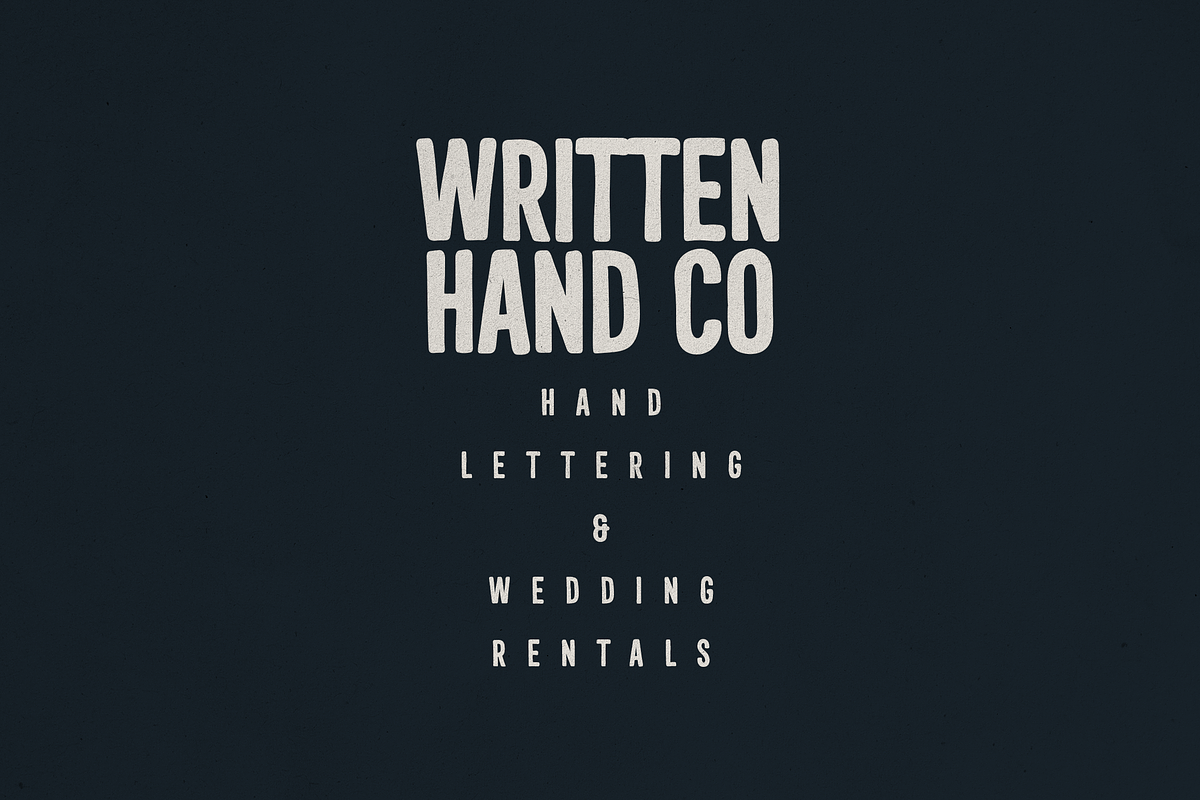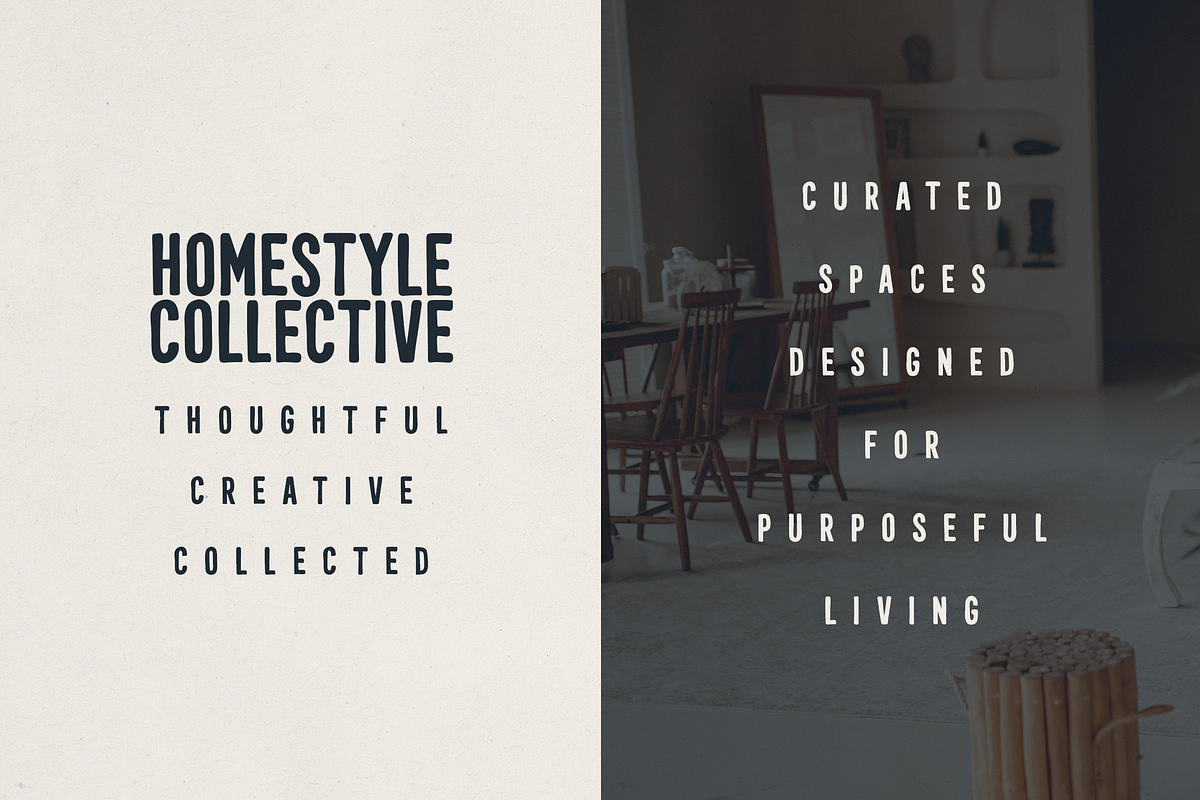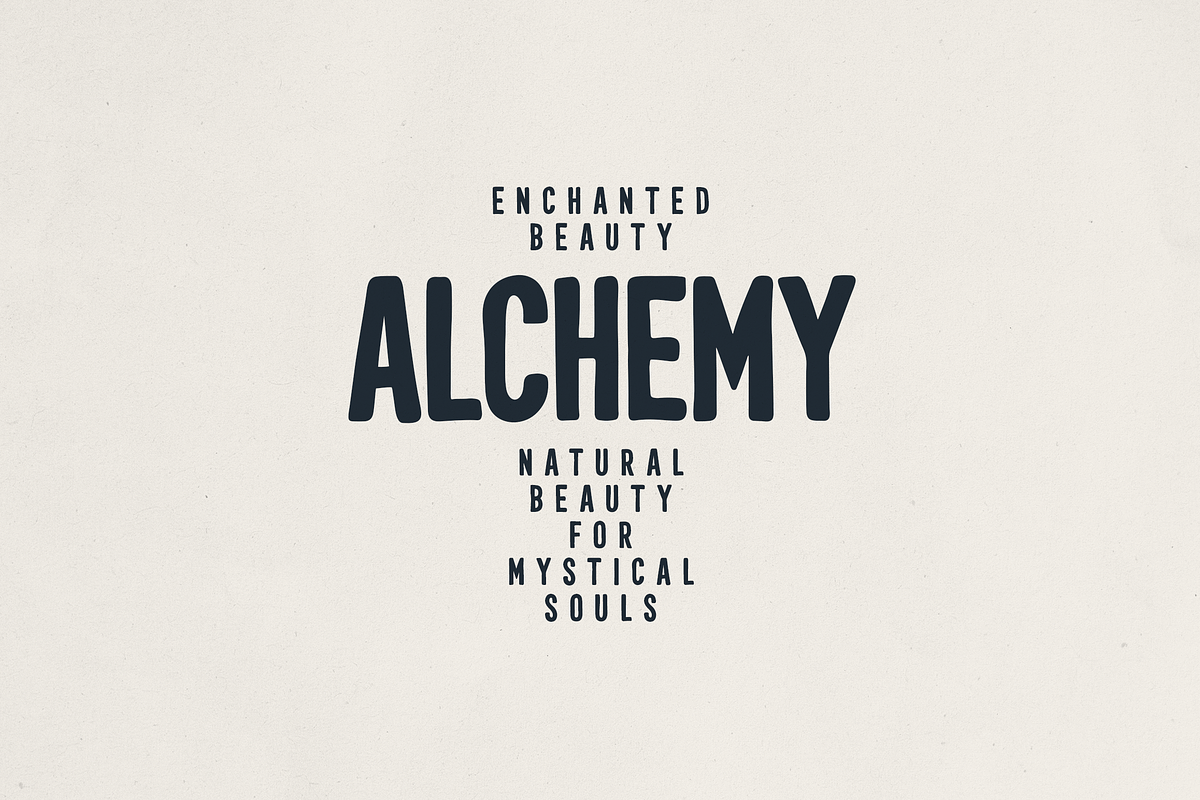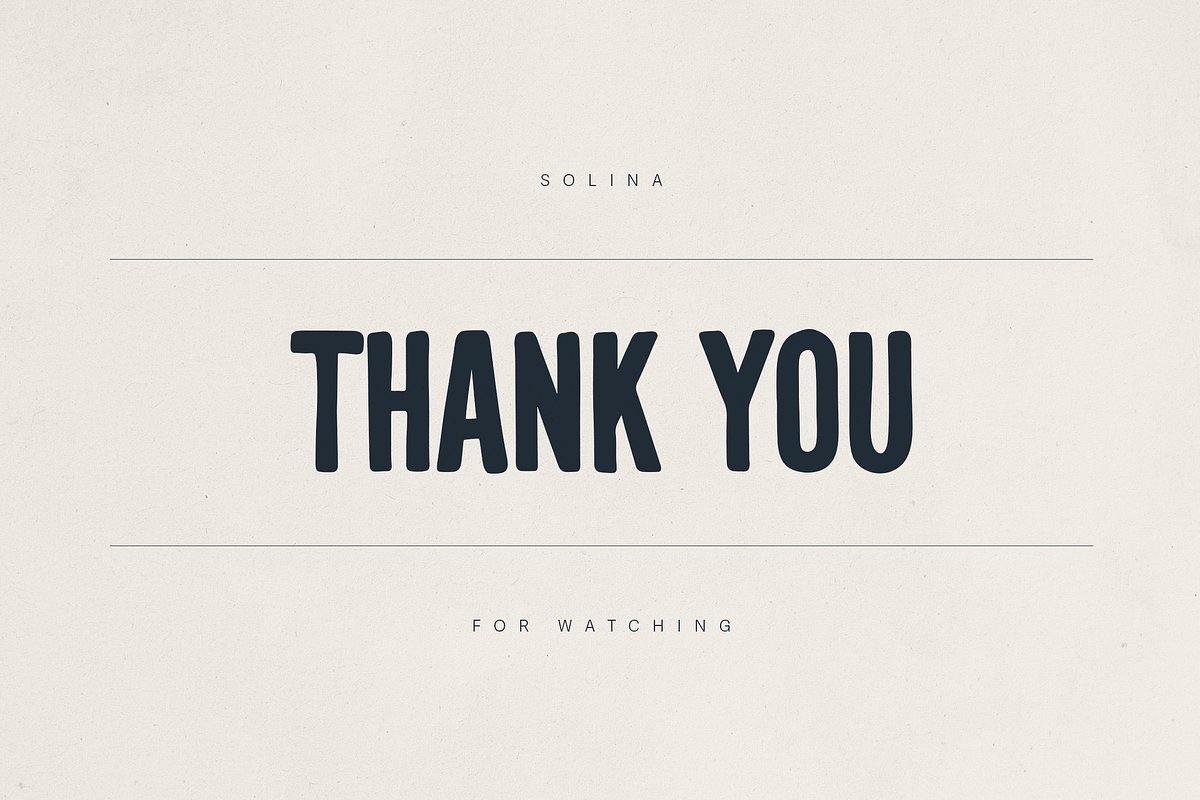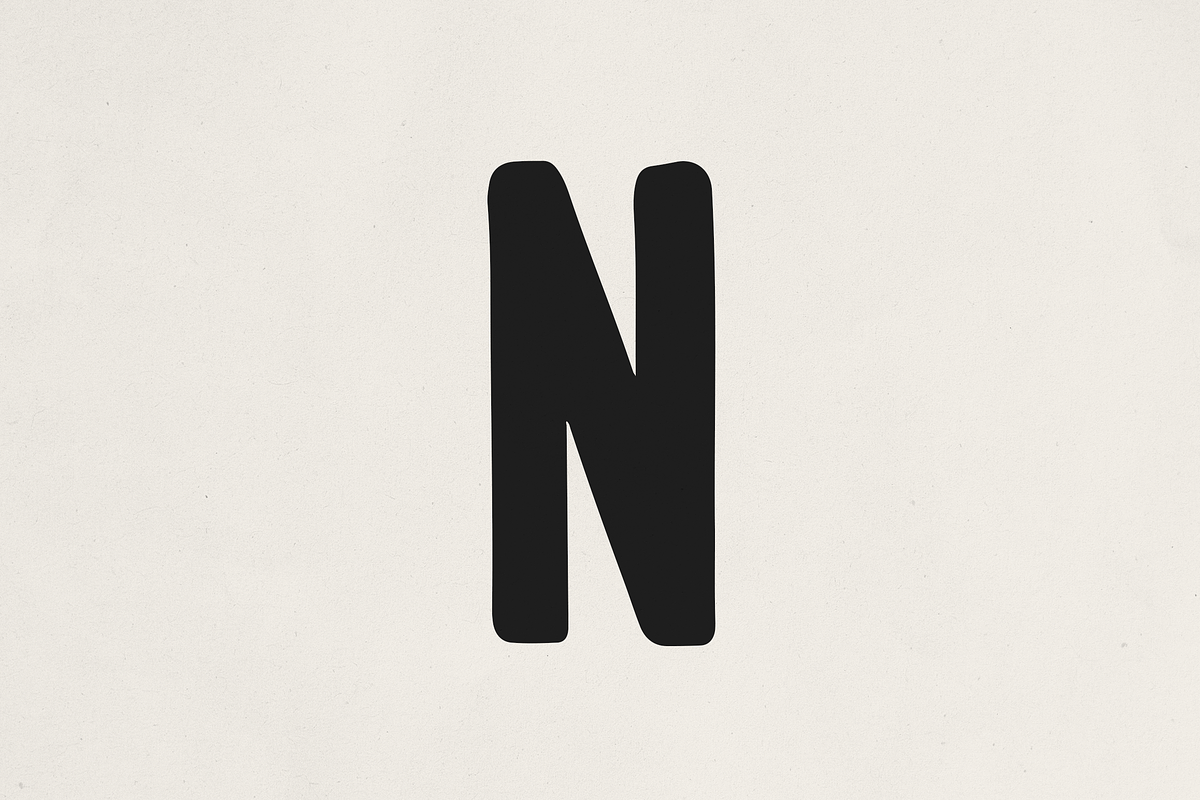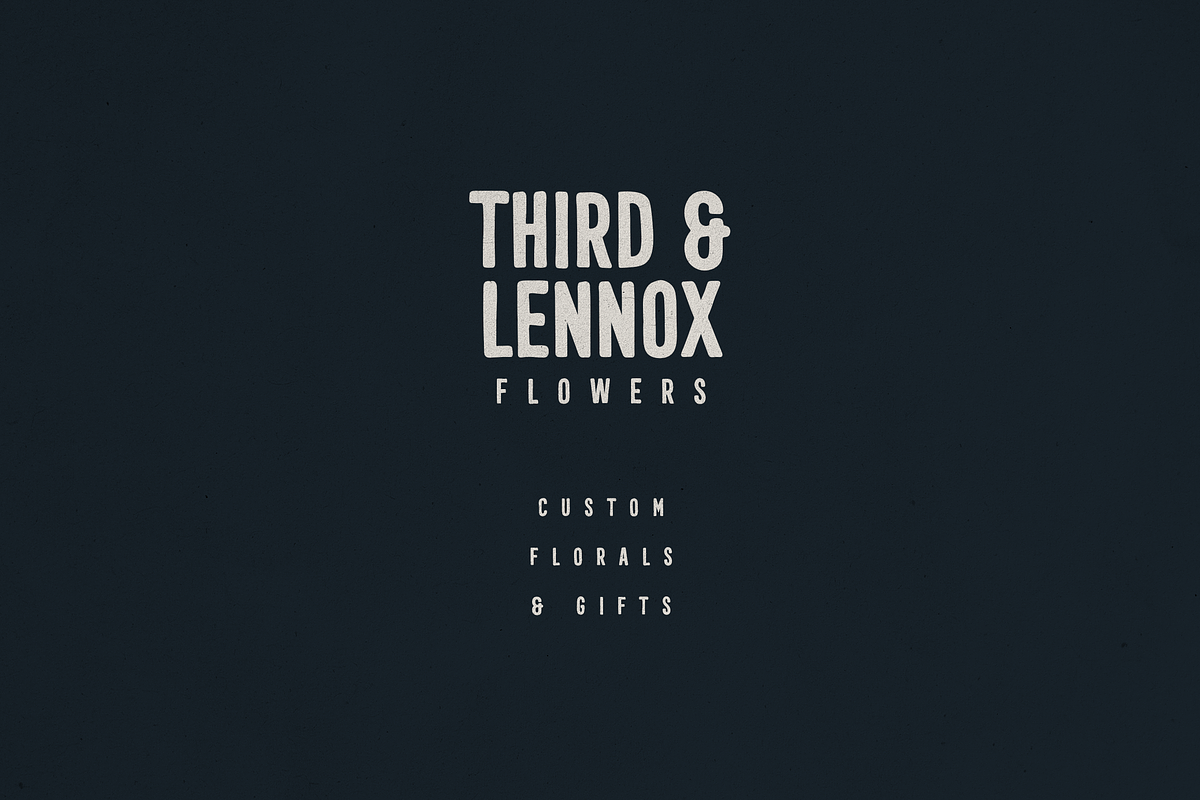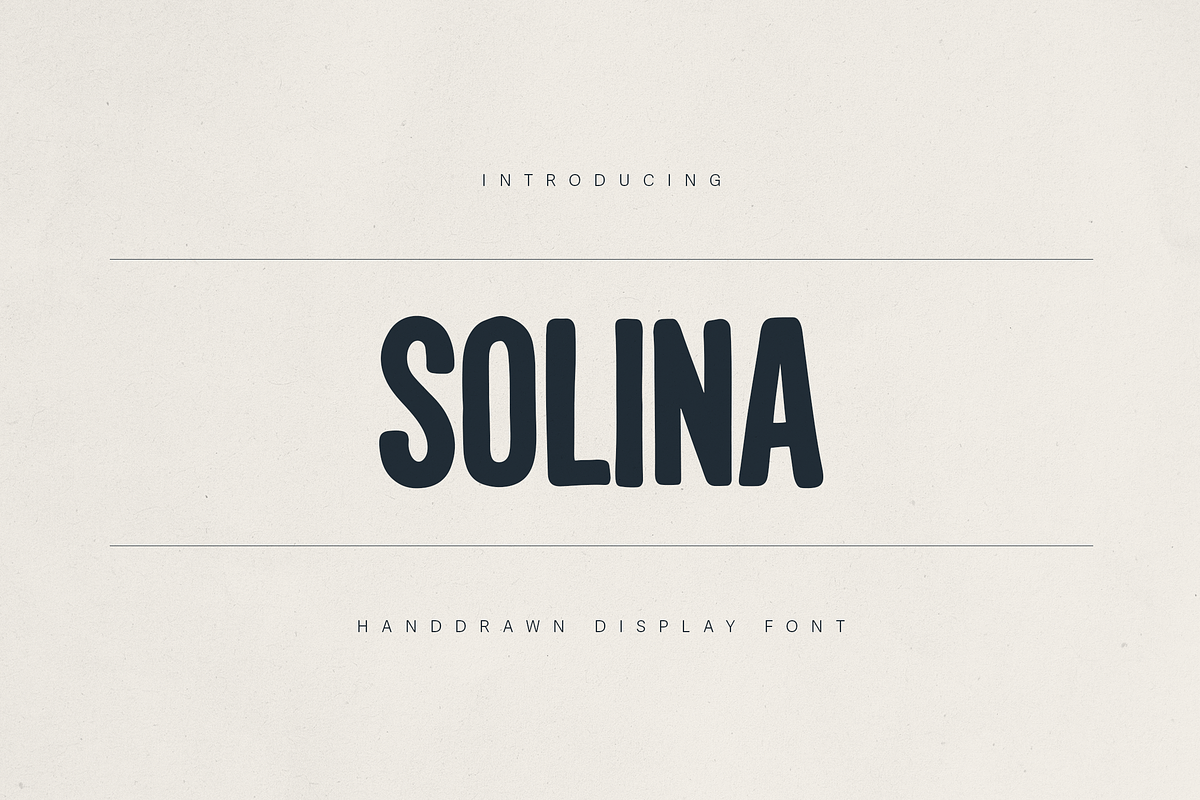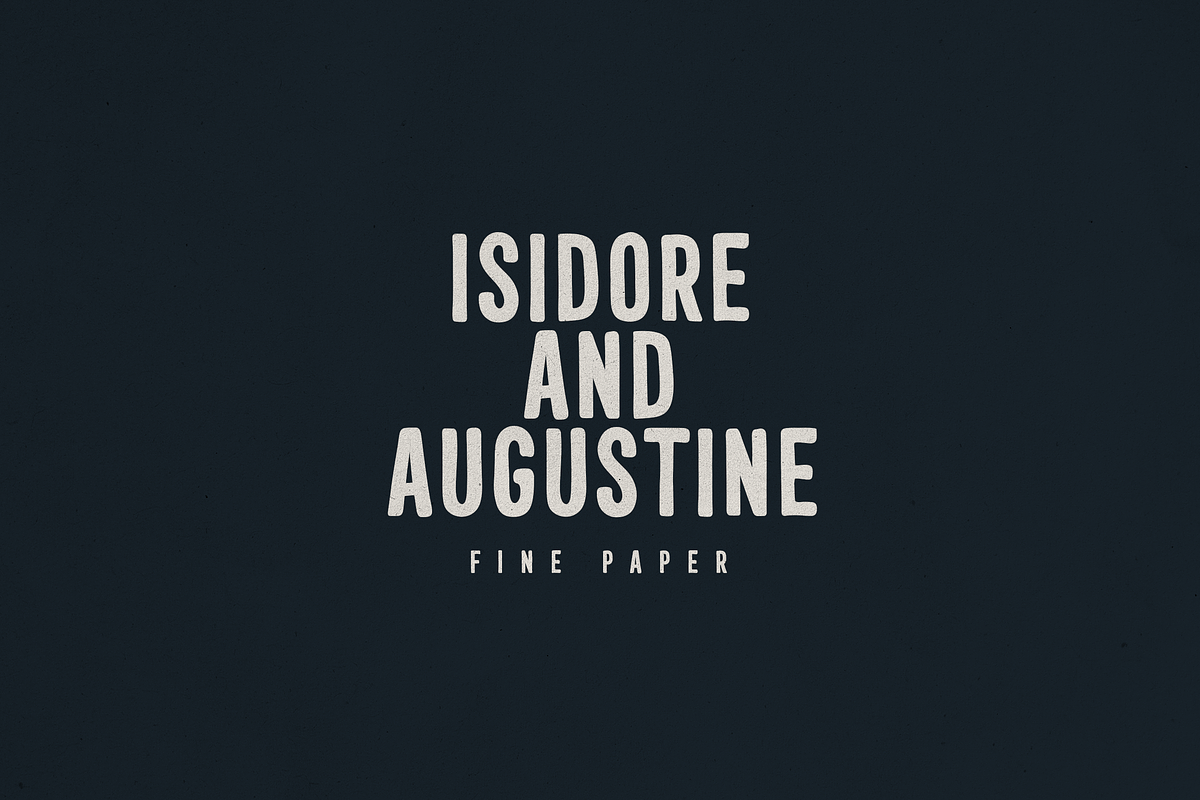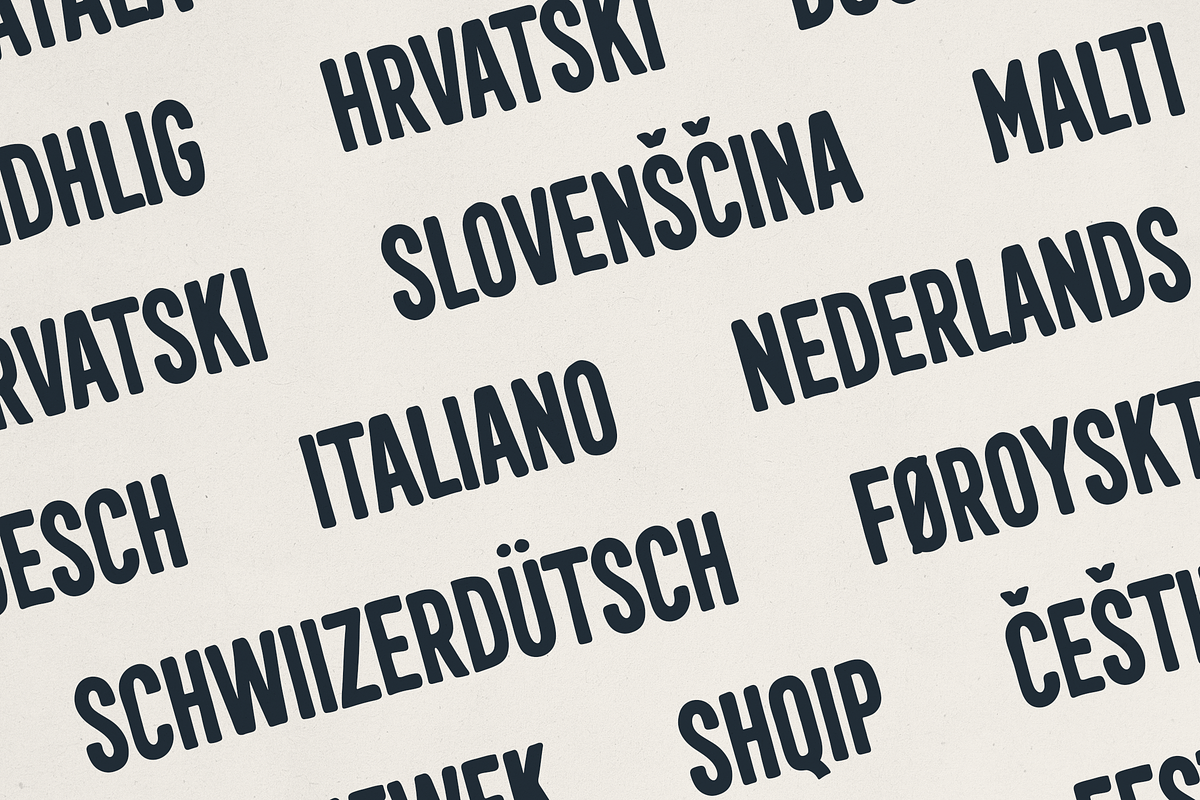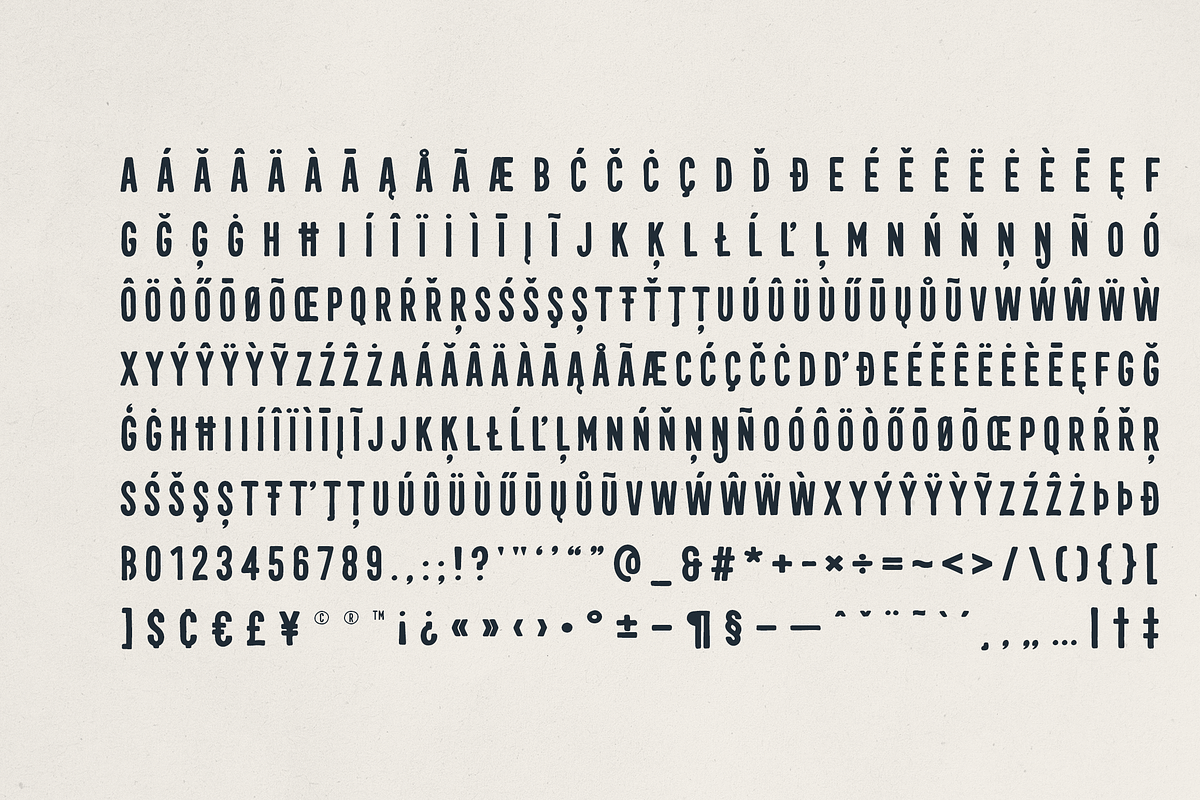
Solina – Handdrawn Display Font
Solina – Handdrawn Display Font with Vintage Charm and Modern Versatility
Solina is a bold and charismatic handdrawn display font that blends organic personality with clean readability. Designed to stand out, Solina features rounded edges, tall proportions, and a subtly irregular hand-crafted aesthetic—perfect for brands and creatives who want to infuse their projects with warmth, authenticity, and style.
Whether you're designing for home decor brands, boutique packaging, editorial titles, or modern bistros, Solina adapts beautifully. Its uppercase-only design and multilingual support make it an excellent choice for logos, signage, headers, invitations, and social media graphics.
- Handdrawn aesthetic with a clean, modern finish
- All-uppercase characters with unique rhythm and bold impact
- Extensive language support (87+ languages)
- Perfect for branding, editorial design, packaging, event signage, and more
- Includes full punctuation, symbols, currency, and diacritics
Solina exudes personality without sacrificing clarity, making it ideal for designers looking to create memorable and meaningful designs with a human touch.